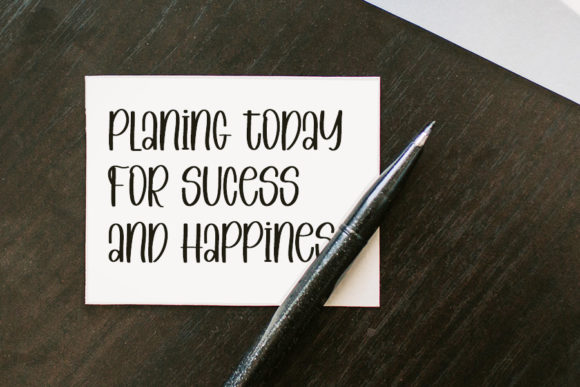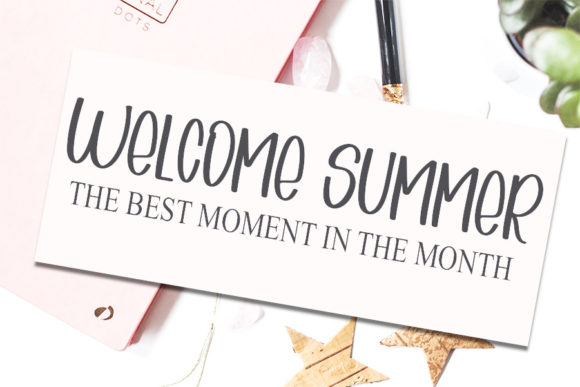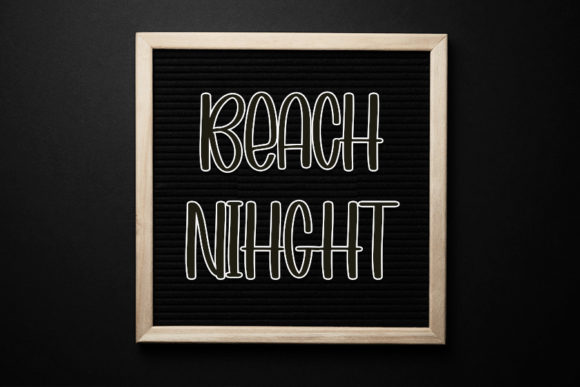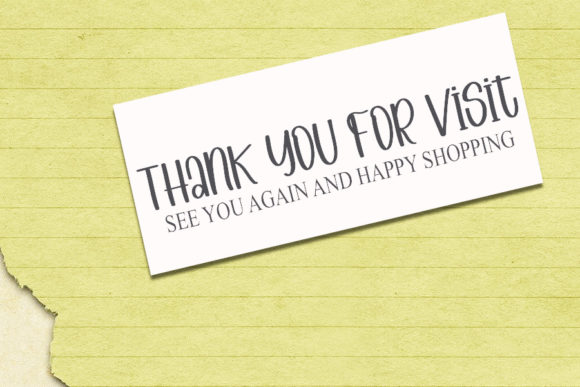
Introduction to Baby Shark Font
Have you ever been working on a creative project, pouring your heart and soul into every detail, only to find that something is missing? A spark that sets it all off? For many designers, that spark can come in the form of a unique and eye-catching font. And that’s where the Baby Shark Font comes in – a friendly and joyful handwritten font that’s sure to add a splash of fun to any design.
Key Features of Baby Shark Font
- Transparent background for easy customization and versatility in creative projects
- High-quality font with crisp and clear characters, suitable for various design applications
- Unique and playful design inspired by the popular children’s song “Baby Shark”, perfect for adding a fun and whimsical touch to designs
Honest Review: Baby Shark Font
- High-quality design: The Baby Shark Font is crisp and clear, making it perfect for digital use.
- Transparent background: This feature allows for seamless integration with other design elements.
However, I did encounter a few limitations while working with the Baby Shark Font.
- Limited character set: The font only includes a few characters, which can be a limitation for designers who need to use it for more complex projects.
- Not suitable for formal projects: The Baby Shark Font is better suited for fun and playful projects, rather than formal or professional ones.
Overall, I think the Baby Shark Font is a great resource for designers who are looking to add some personality to their creative projects. While it may have some limitations, it’s a free and high-quality design resource that’s definitely worth checking out.
Getting the Most Out of the Font
For the best results, use the Baby Shark Font in conjunction with other design elements, such as graphics and images. Experiment with different font sizes, colors, and styles to create a unique and eye-catching design.
The Baby Shark Font is commonly used in children’s designs, party invitations, and educational materials. Its playful and fun design makes it perfect for projects that require a lighthearted and engaging tone.